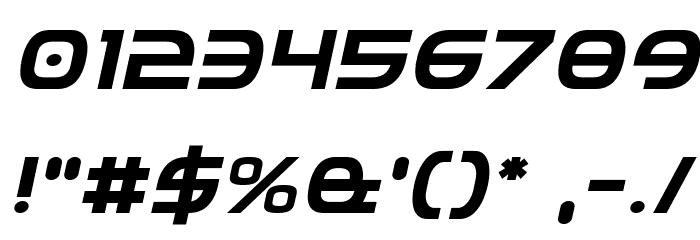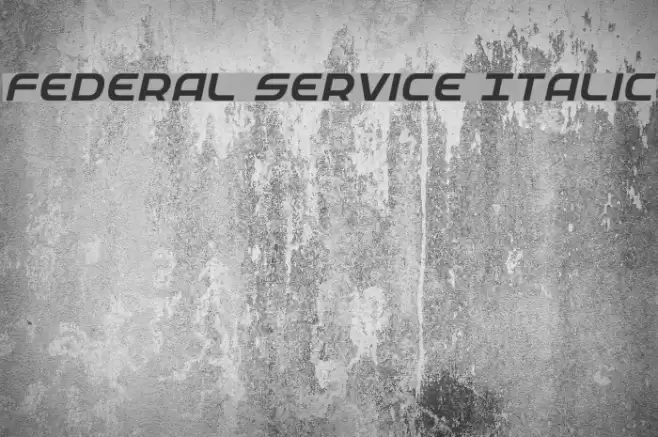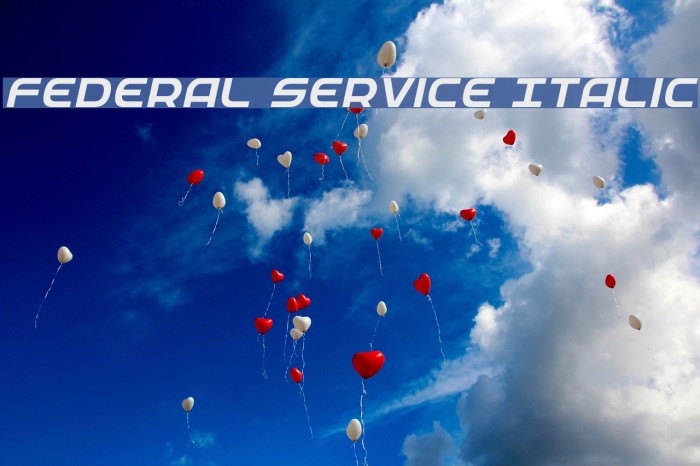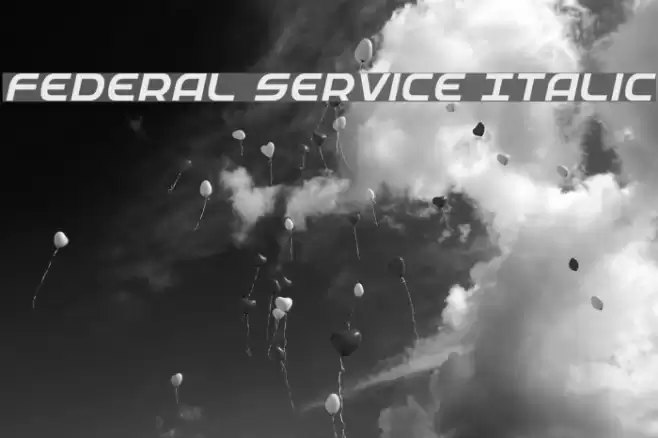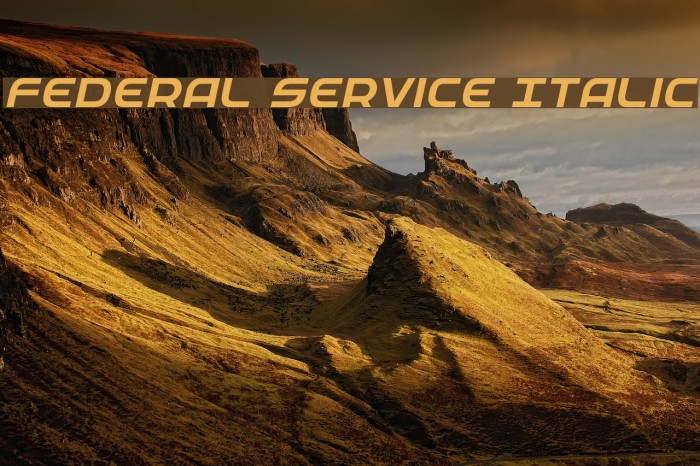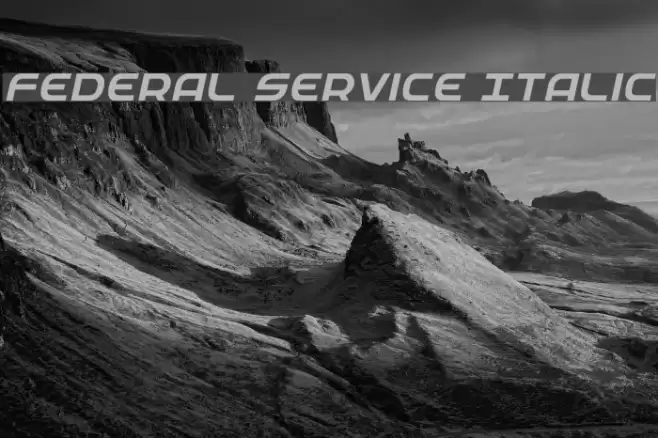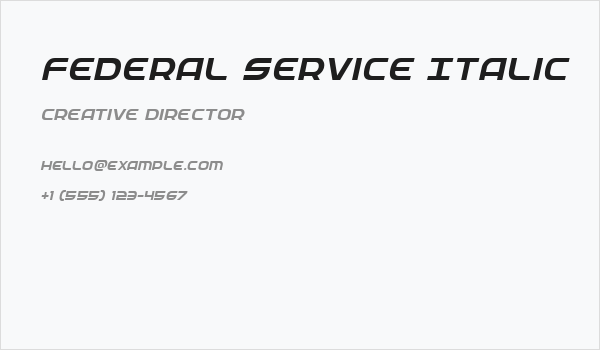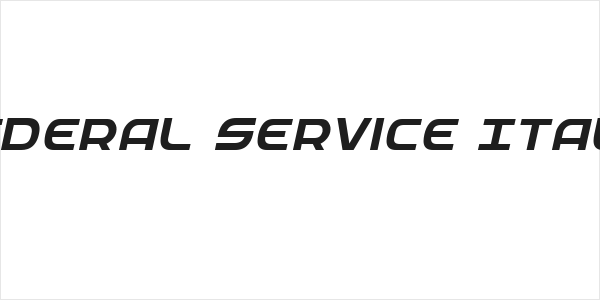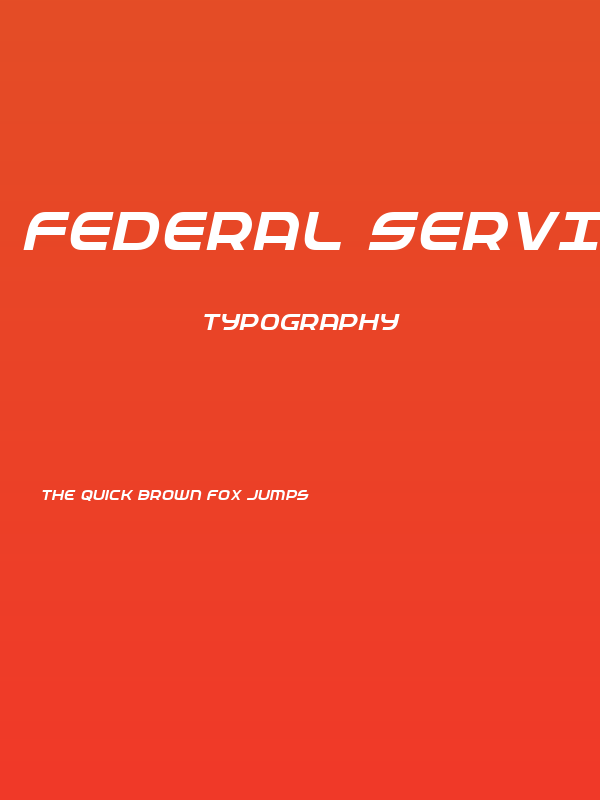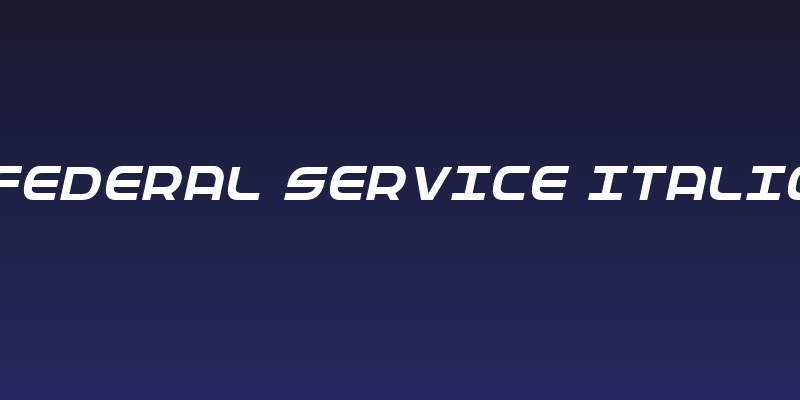
Federal Service Italic Font
Federal Service Italic Description
This font features a sleek, italicized design with a modern and futuristic appeal. The characters are slightly slanted, giving a sense of motion and dynamism. The strokes are uniform in thickness, contributing to a clean and streamlined appearance. The uppercase and lowercase letters maintain a consistent style, with rounded edges and a geometric structure. Numbers and special characters are designed to match the overall aesthetic, ensuring visual harmony across all elements.
Use CaseLogos, Headlines, Branding
Proposed ProjectsIdeal for technology branding, automotive advertisements, sports team logos, and modern web design.